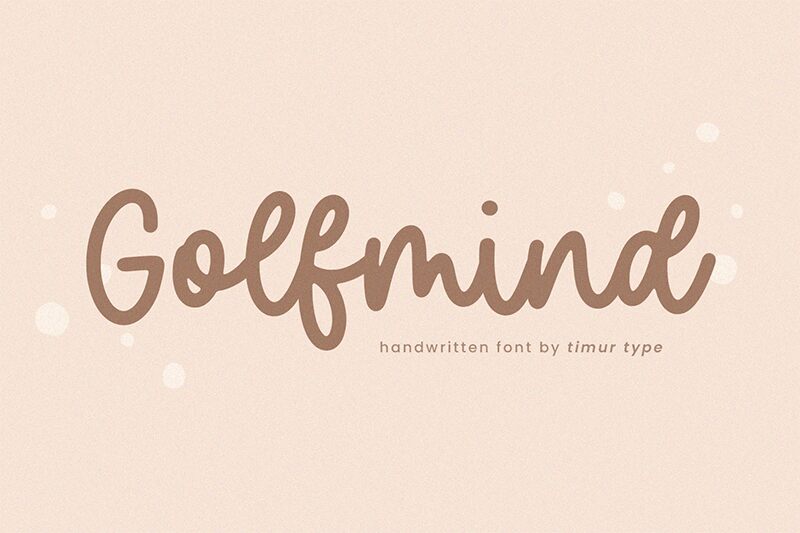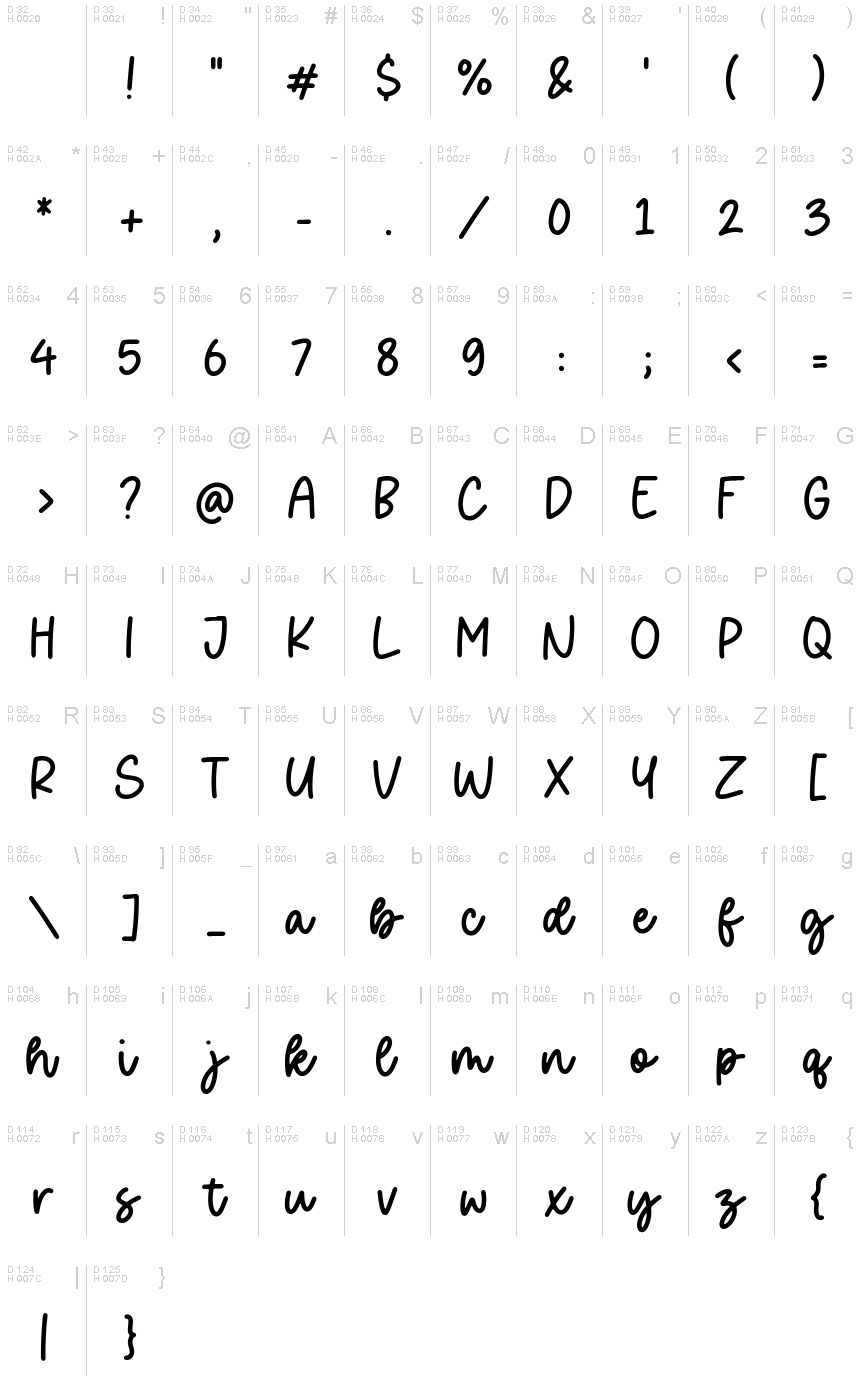
Golfmind
Golfmind, designed by Timur Type, captures the essence of personal touch with its handwritten style that exudes warmth and charm. The fluid strokes and variable thickness give it an organic feel, as though each character has been thoughtfully penned. With a casual elegance that seems to dance across the page, Golfmind is both approachable and sophisticated.
The font's aesthetic lends itself well to designs requiring a human touch, making it perfect for invitations, branding for boutique businesses, or any project looking to convey authenticity and intimacy. Its inviting appearance ensures that messages crafted in Golfmind are not just read but felt, allowing for a connection between the text and the reader that is rare in digital formats.